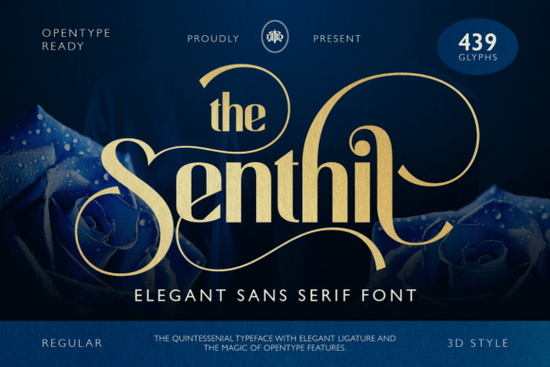
If you're looking for a typeface that brings a high-end feel without shouting too loud, the Senthil Font is worth a closer look. It's a modern elegant sans serif that pairs clean letterforms with flowing swashes the kind of combination that works beautifully for luxury branding, beauty campaigns, or editorial projects. Designers often struggle to find a font that feels both classy and bold at the same time, but this one manages that balance well.
What makes Senthil Font different from other sans serifs?
Most sans serif fonts are clean and minimal, but they can feel a bit plain. Senthil adds stylish ligatures and smooth curves that give it a premium editorial look. The regular style is perfect for everyday luxury use, while the 3D style adds depth for dramatic packaging or event posters. You get two distinct looks from one font family, which saves you from buying a separate display typeface.
The font also includes alternates and a character map of stylish swashes, so you can mix and match letterforms to create custom wordmarks. For print-on-demand sellers, this means you can design unique products without every piece looking the same.
How does the 3D style work?
The 3D style is not a separate font but an alternate version of Senthil that includes built-in shadow effects. Instead of manually adding a drop shadow or extrusion in your design tool, you can simply type in the 3D version and get an instant dimensional look. This is especially useful for beauty campaigns, magazine headers, or any project where you want typography to stand out without extra layers. Keep in mind that the 3D effect works best at larger sizes for body text, stick with the regular style.
What projects suit Senthil best?
- Luxury branding – logo design, business cards, stationery
- Beauty & fashion campaigns – product labels, online ads
- Perfume & cosmetic packaging – elegant yet bold
- Award event posters – the 3D style creates a glamorous feel
- Editorial design – magazine titles, pull quotes
- High-end logo design – custom ligatures give each logo a unique touch
- Social media graphics – Instagram story titles, YouTube thumbnails
- Wedding invitations – flowing swashes add romance
If you're a small business owner or a creative hobbyist, you'll also find it useful for print-on-demand items like mugs, T‑shirts, or tote bags the 3D version is especially eye-catching on apparel.
How does Senthil compare to other sans serif fonts?
There are many elegant sans serifs out there, but Senthil stands out because of its swashes and alternates. Most luxury fonts are either script or serif, so a sans serif with this level of ornamentation is less common. If you're working on a project that needs a strong, confident look without being too decorative, this fits right in. For a more compact and tall option, you might also look at condensed sans serif fonts but Senthil's proportions are better suited for headings and logos.
Another popular choice for luxury branding is the Gigamore font, which has a different personality more geometric and modern minimal. Senthil feels warmer with its curves and swashes. The right choice depends on whether you want a sharper or softer look.
- Use the regular style for long text or small sizes; save the 3D style for headlines and logos.
- Test the font on your actual product mockups swashes can sometimes interfere with tight layouts.
- If you need a matching sans serif for body copy, consider pairing it with a simple geometric font.